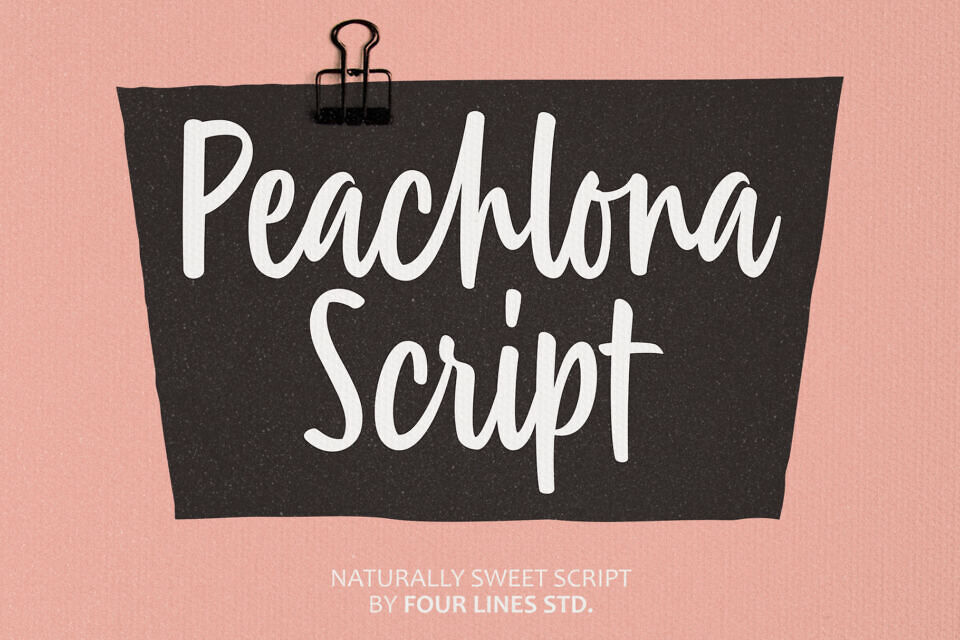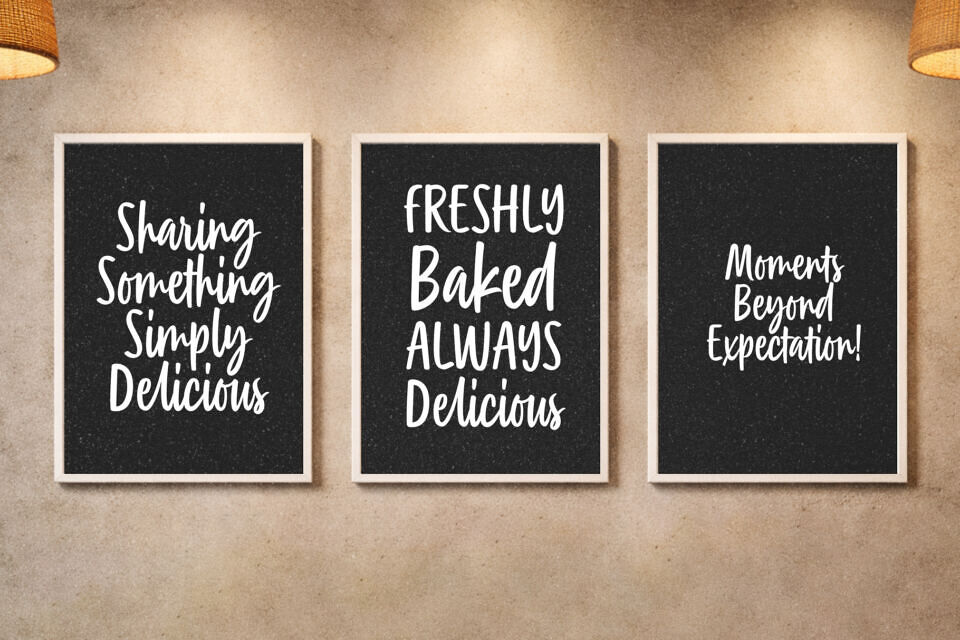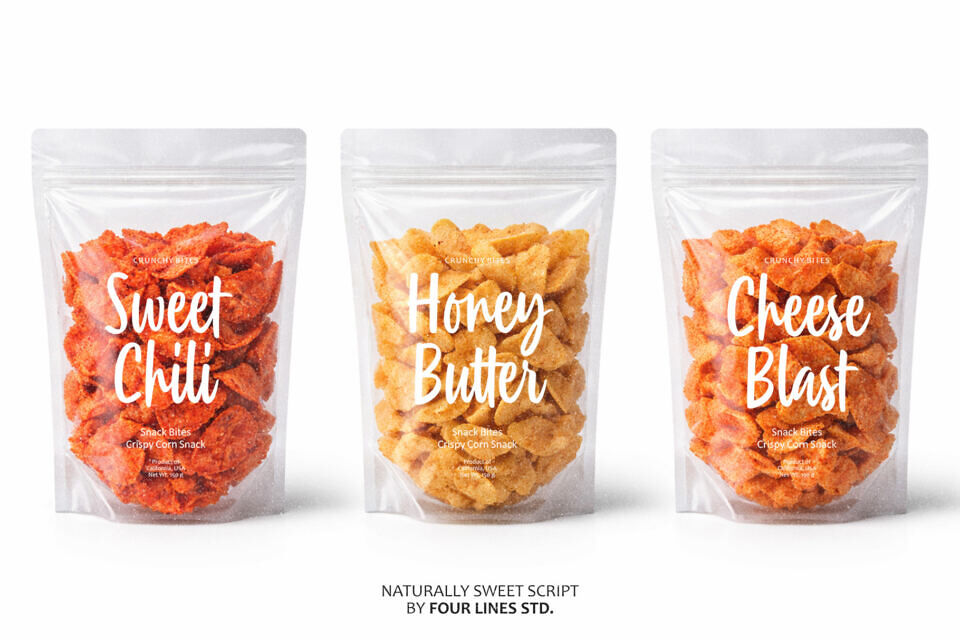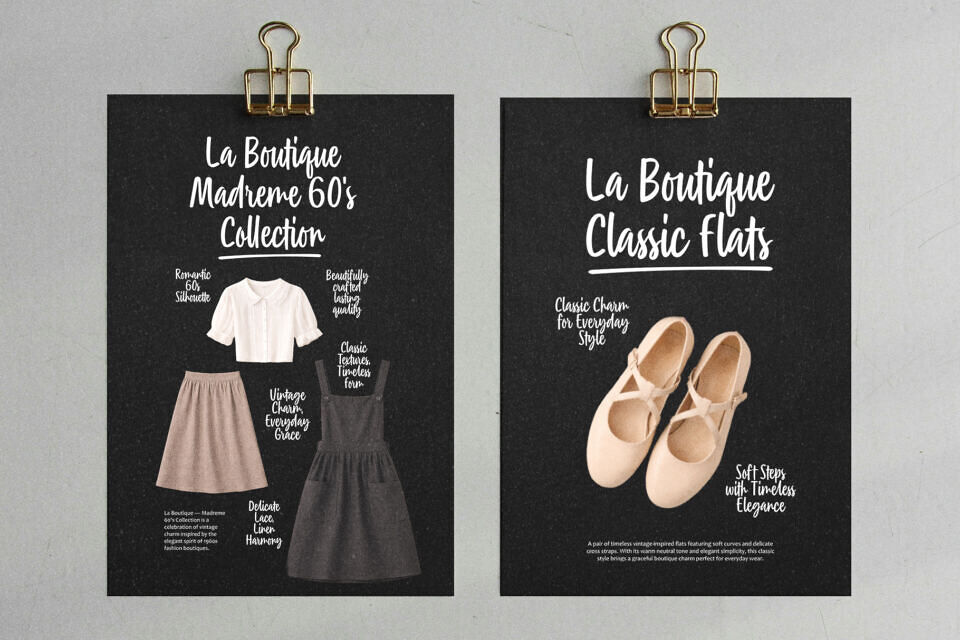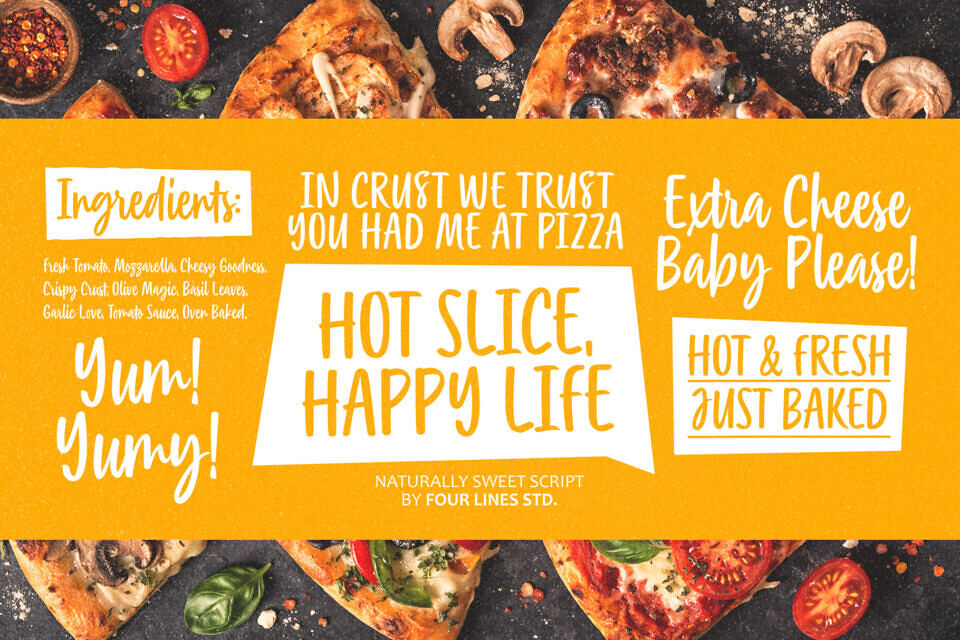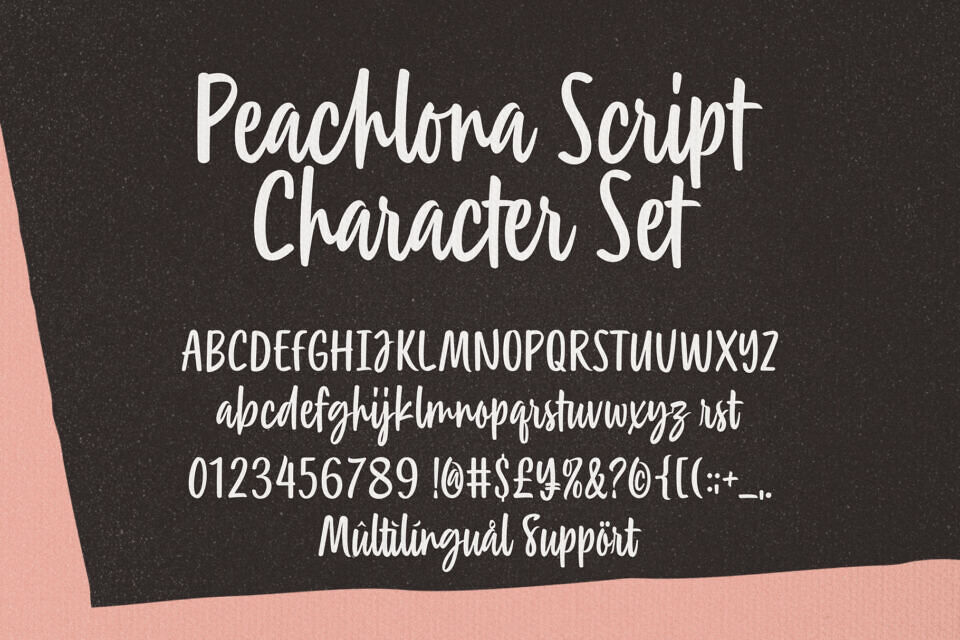
Peachlona Script Font
Peachlona Script is a handwritten script font with a soft, natural style and clear readability. It is designed to bring a warm and friendly touch to a wide range of design needs.
The letterforms flow smoothly with a relaxed handwritten feel, making the font suitable for titles, logos, and decorative elements in design. Peachlona works well for many creative projects such as branding, product packaging, posters, invitations, and social media content.